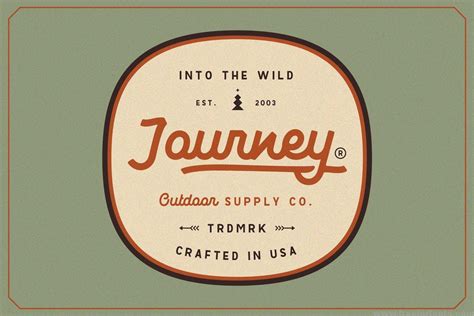
Marshfield Font: Free Download & Creative Uses
Hey everyone! Today we’re diving deep into the awesome Marshfield font , and guess what? You can snag it for a free download ! Yep, you heard that right. This font is a real gem, perfect for adding a touch of vintage charm and retro flair to all your design projects. Whether you’re working on a cool poster, a stylish logo, or even a snazzy social media graphic, the Marshfield font is ready to make your work pop. We’ll explore where you can grab this beauty, how to use it effectively, and why it’s become such a go-to for designers looking to create something truly unique. Get ready to level up your design game, guys!
Why Marshfield Font is a Designer’s Dream
So, what makes the Marshfield font so special, you ask? Well, for starters, it’s got this incredible, hand-drawn feel that just oozes character. It’s not your typical sterile, corporate font, and that’s its superpower! Think of those classic diner signs, old-school movie posters, or even those cool album covers from the 70s – that’s the vibe Marshfield brings to the table. Its slightly distressed texture and imperfect lines give it a warm, inviting, and totally authentic look. This authenticity is key in today’s design world where everyone’s striving for that personal touch. Designers love Marshfield because it instantly adds a narrative to their work, hinting at stories and experiences. It’s incredibly versatile, too. While it shines in retro-themed projects, it can also add a unique twist to modern designs, creating a fascinating juxtaposition. Imagine using it for a craft brewery logo, a boutique’s branding, or even a personal blog header; it just works . The readability is surprisingly good, even with its stylistic elements, which is a huge plus. You won’t have readers squinting to decipher your message. Plus, the free download aspect makes it accessible to everyone, from seasoned professionals to budding graphic design enthusiasts. It democratizes cool typography, allowing more people to experiment and create beautiful things without breaking the bank. This accessibility is crucial for fostering creativity and enabling new talent to emerge. It’s a font that doesn’t just sit there; it communicates a feeling, a time, and a personality. That’s the magic of a well-crafted typeface like Marshfield.
Unleash Your Creativity with Marshfield
Now, let’s talk about how you can actually use the Marshfield font to its full potential, guys. This is where the magic really happens! When you’re designing, think about the mood you want to evoke. Marshfield is perfect for projects that need that warm , nostalgic , or handcrafted feel. For example, if you’re creating a logo for a coffee shop , imagine Marshfield emblazoned on the sign, welcoming customers with its friendly, slightly retro charm. It immediately tells a story about quality, tradition, and perhaps a cozy atmosphere. Or, consider using it for event posters . A concert featuring a folk band? A vintage fair? Marshfield will nail that vibe. You can pair it with other complementary fonts, perhaps a clean sans-serif for body text to ensure readability, while letting Marshfield steal the show for headlines and key phrases. Don’t be afraid to play with letter spacing and kerning – subtle adjustments can make a world of difference in how the font feels. For instance, slightly loosening the tracking can enhance its vintage, airy feel, while tighter kerning can give it a more solid, impactful presence. One of the most exciting applications is in packaging design . Imagine artisanal food products – jams, baked goods, or craft beers – where the packaging needs to convey quality and a unique story. Marshfield can be the star, making your product stand out on the shelves. Social media graphics are another fantastic playground. Create eye-catching quotes, promotional banners, or even just engaging posts that have a distinct personality. The key is to use it strategically. It’s a bold font, so using it for long blocks of text might be overwhelming. Instead, let it be the hero of your design for titles, subheadings, or call-to-action buttons. Think about layering it over textures or images that complement its vintage aesthetic – think distressed paper, wood grain, or muted color palettes. This adds depth and reinforces the overall theme. The free download makes it easy to experiment. Download it, play around with it in your favorite design software, and see what amazing things you can create. The possibilities are truly endless when you have a font as versatile and character-filled as Marshfield at your fingertips. Remember, typography is storytelling, and Marshfield is a fantastic narrator for your visual tales. Go ahead, get creative, and show the world what you can do!
Beyond the Download: Tips for Using Marshfield Effectively
Alright, you’ve downloaded the Marshfield font , and it’s looking sharp in your design software. But how do you make sure you’re using it like a pro, guys? It’s not just about slapping it on a design; it’s about using it strategically. Firstly, remember that Marshfield has a strong personality. Use it as a statement piece . This means it’s ideal for headlines, titles, key phrases, or call-to-action elements. Avoid using it for large blocks of body text, as its decorative nature can hinder readability over extended periods. Think of it like a bold spice – a little goes a long way to add flavor, but too much can overpower the dish. Secondly, consider pairing Marshfield with a contrasting font . A clean, simple sans-serif or a classic serif font can provide a much-needed balance. This contrast helps Marshfield stand out even more and ensures your overall design remains legible and professional. For example, use Marshfield for your main heading and a legible sans-serif like Open Sans or Lato for the supporting text. This creates a visual hierarchy that guides the reader’s eye effectively. Thirdly, play with color and texture . Marshfield often looks fantastic when rendered in muted, earthy tones, or even metallic colors like gold or bronze for a touch of vintage luxury. Overlaying it on subtle textures, like distressed paper, wood grain, or concrete, can further enhance its retro or handcrafted feel. Don’t be afraid to experiment! Try putting Marshfield inside a shape, or use it as a clipping mask for a photo. The free download aspect means you have the freedom to experiment without financial risk. Fourthly, mind the context . Marshfield evokes a certain era and style. Ensure it aligns with the overall theme and message of your project. It’s perfect for branding related to artisanal products, craft breweries, vintage stores, music festivals, or anything with a laid-back, retro, or handcrafted vibe. It might not be the best fit for a cutting-edge tech company or a formal corporate report, unless you’re intentionally going for a very specific, ironic contrast. Finally, pay attention to alignment and spacing . While its slightly irregular nature is part of its charm, ensuring consistent alignment and appropriate kerning (the space between letters) can elevate your design from amateur to polished. Most design software allows you to fine-tune these elements. By following these tips, you can ensure the Marshfield font not only looks good but also effectively serves your design goals, making your projects stand out for all the right reasons. It’s all about understanding its strengths and using them wisely!
Marshfield Font: A Closing Thought
So there you have it, folks! The Marshfield font is an absolute treasure, especially when you consider you can get it as a free download . It brings that unique blend of vintage charm, handcrafted authenticity, and versatile style that can elevate any project. From eye-catching logos and posters to engaging social media graphics and unique packaging, Marshfield offers a distinctive voice. Remember to always check the licensing, use it strategically by pairing it with complementary fonts, and play with colors and textures to bring out its full potential. The ease with which you can access and experiment with this font means there’s no excuse not to give it a try. So go ahead, download Marshfield, and let your creativity run wild. You might just discover your new favorite typeface for adding that special, nostalgic, and totally cool touch to your designs. Happy designing, everyone!